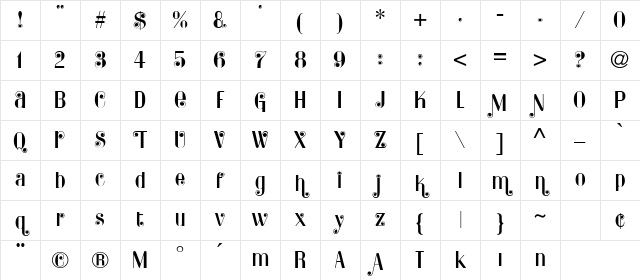
Complete Springtime Regular glyph index. Displaying only characters natively supported by Springtime Regular font.
Springtime is a composed and adaptable typeface that performs quietly and consistently across a wide range of design contexts.